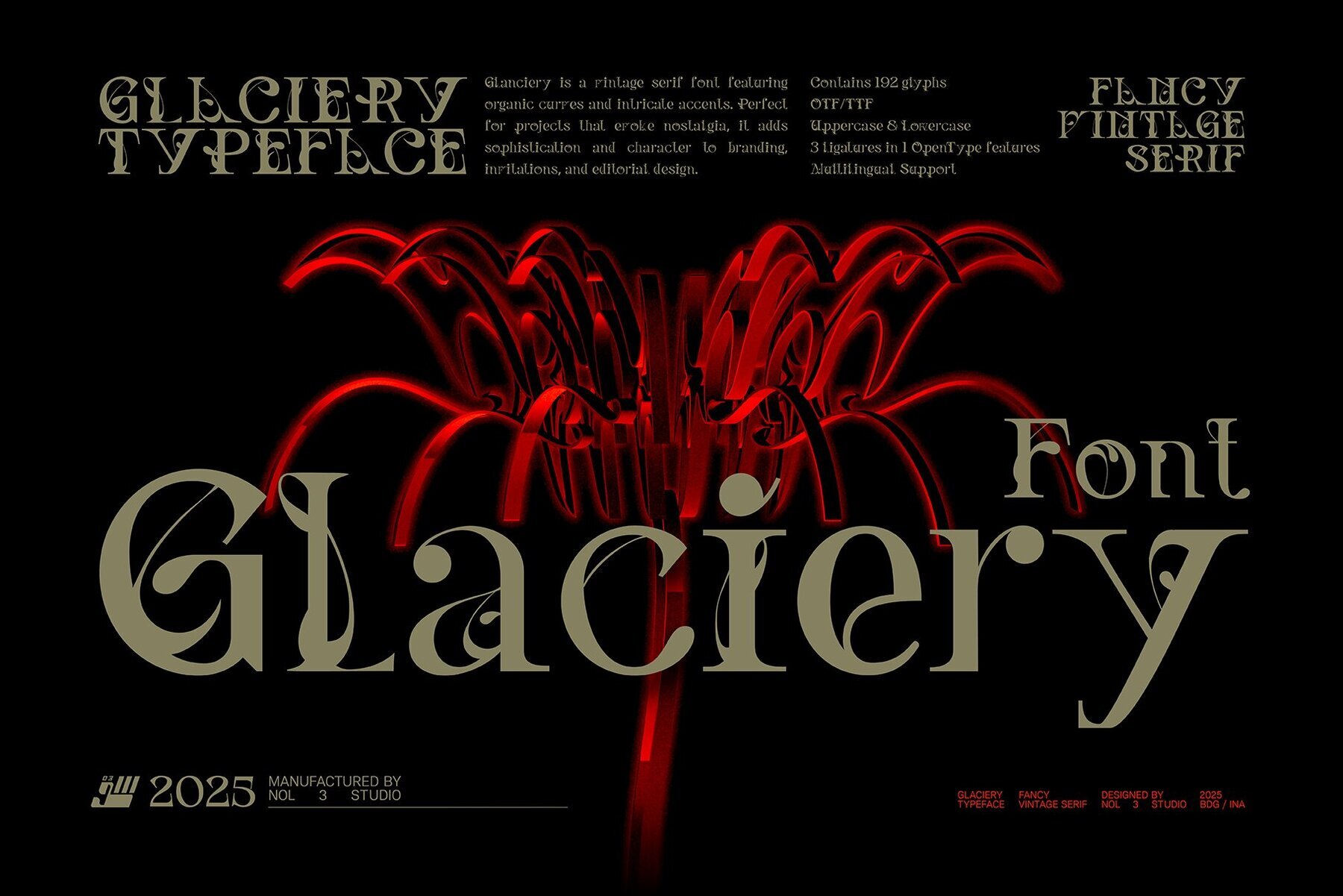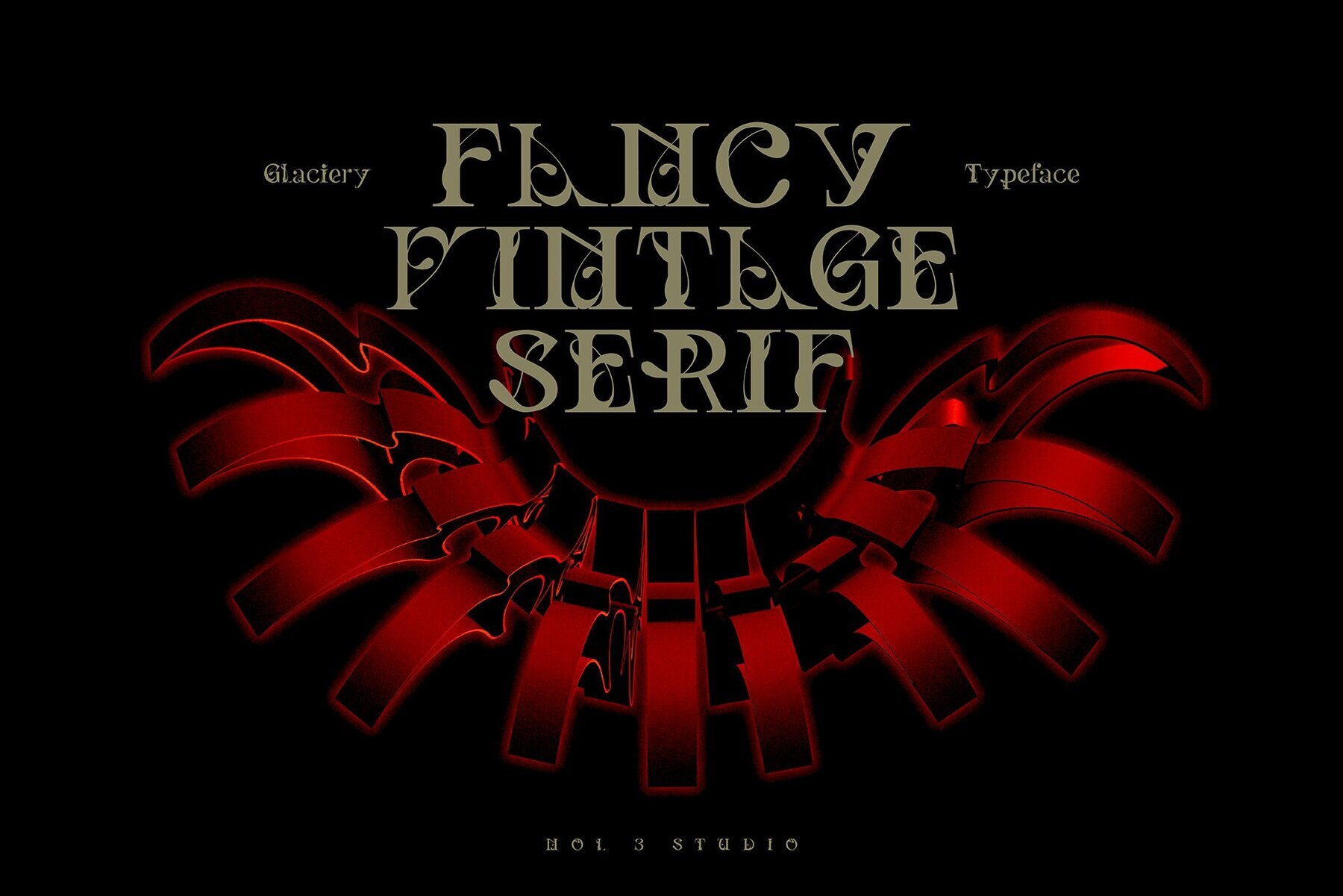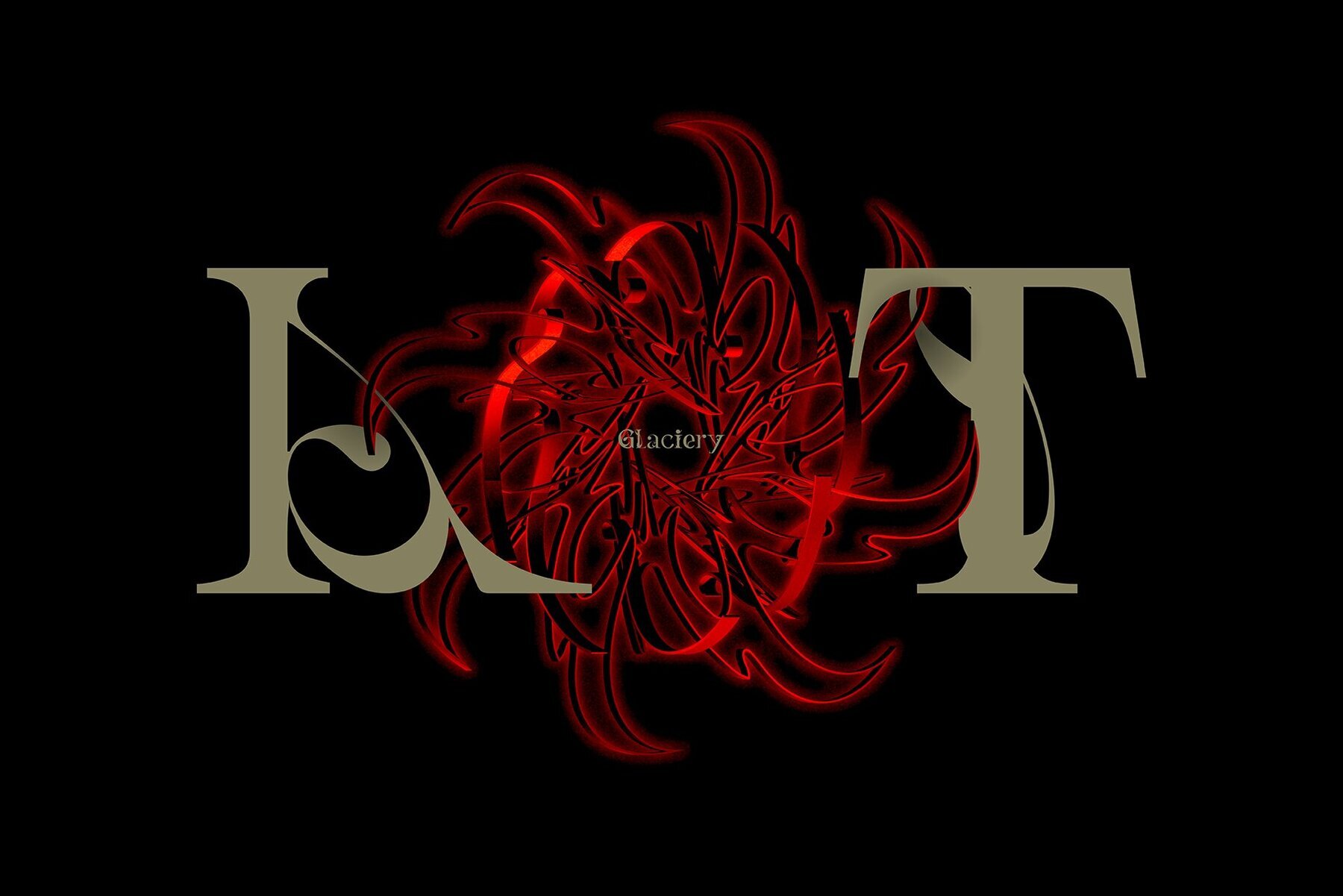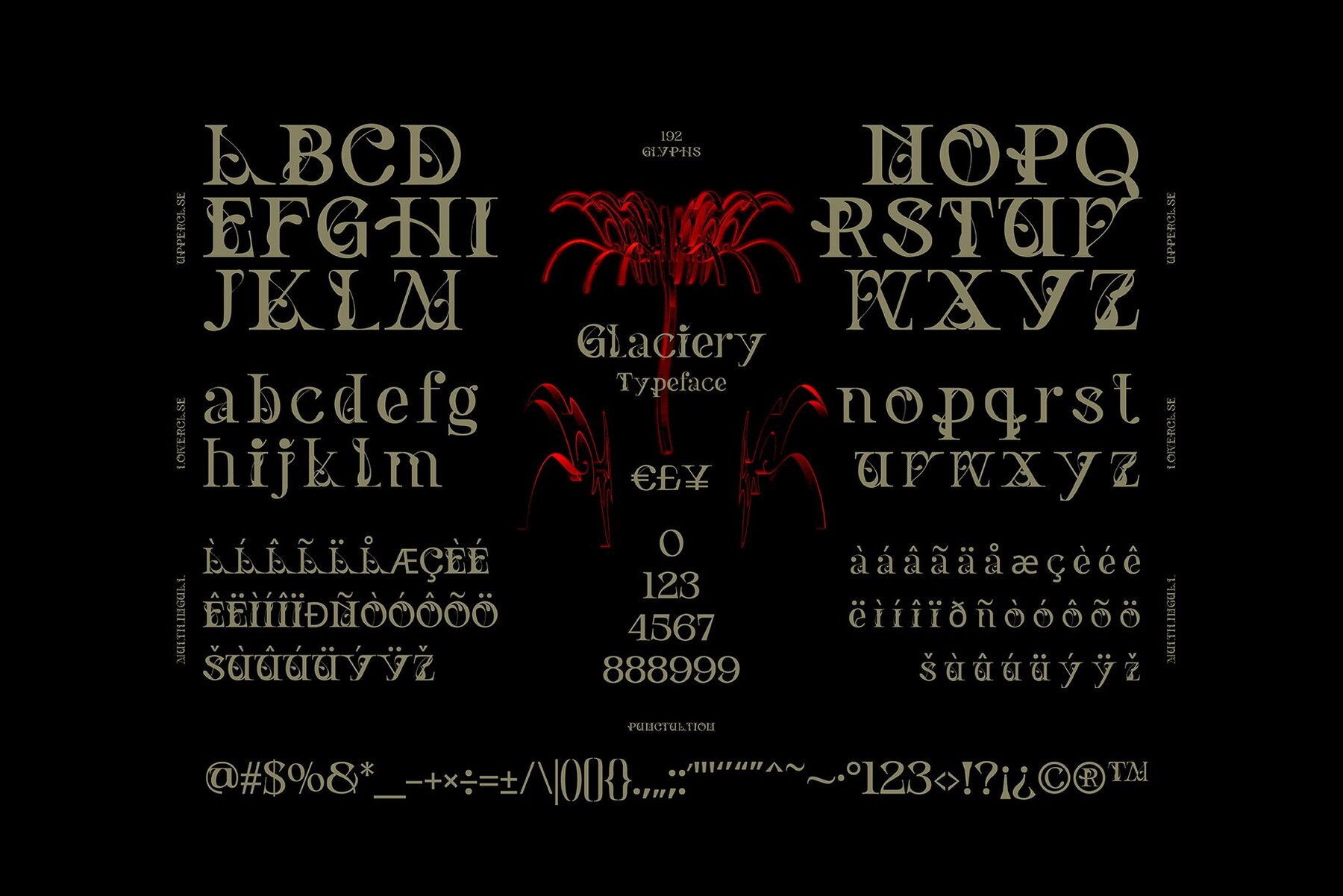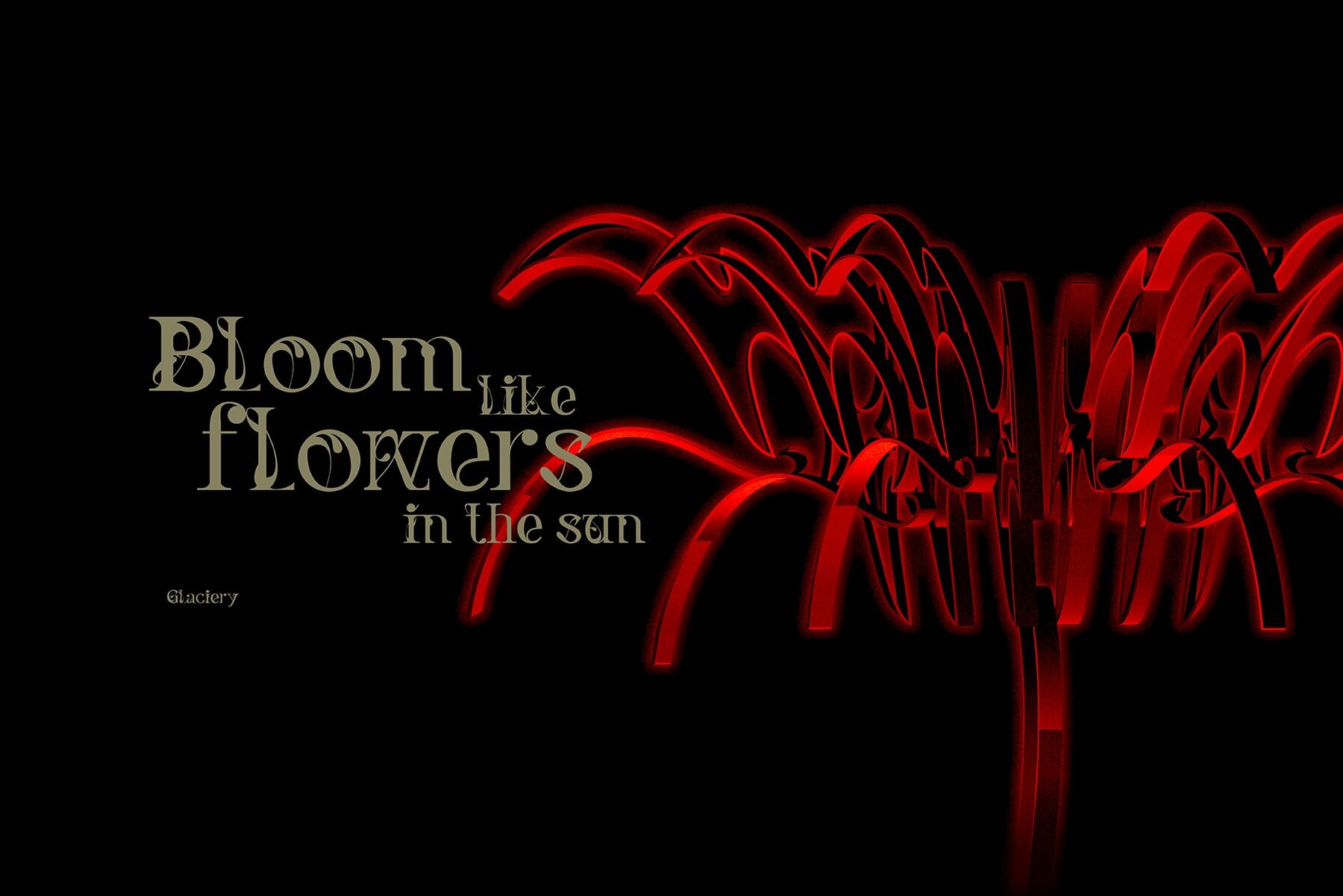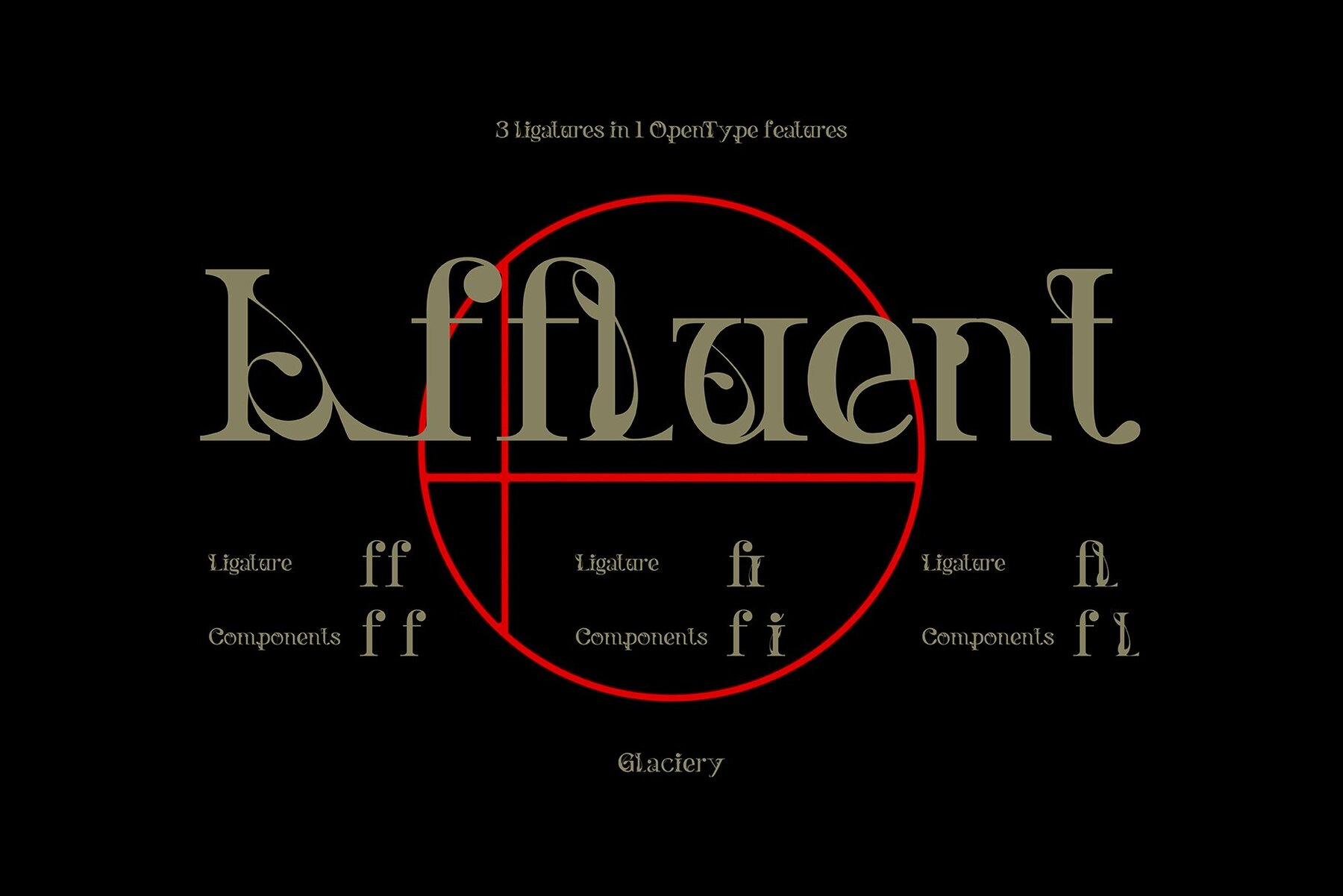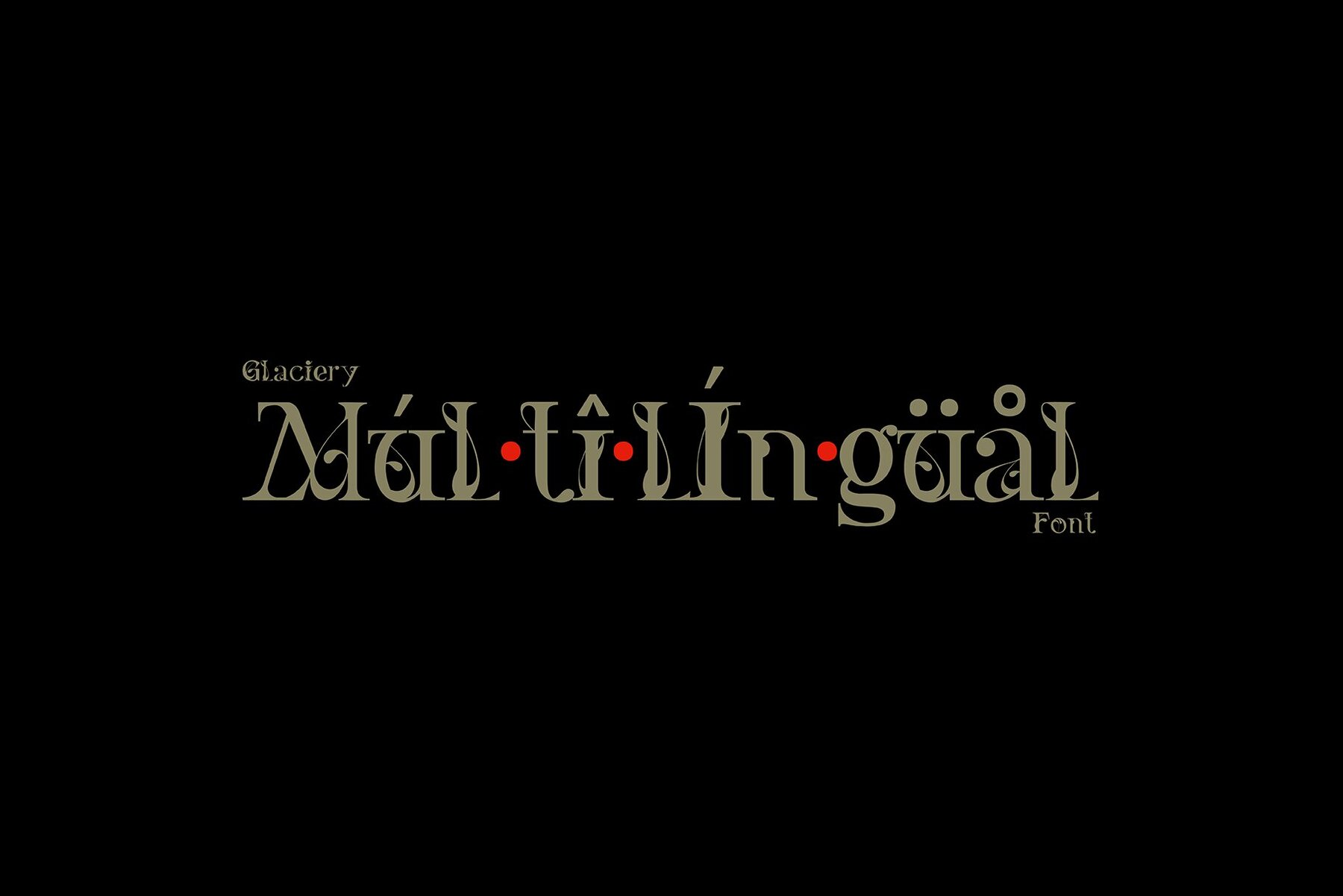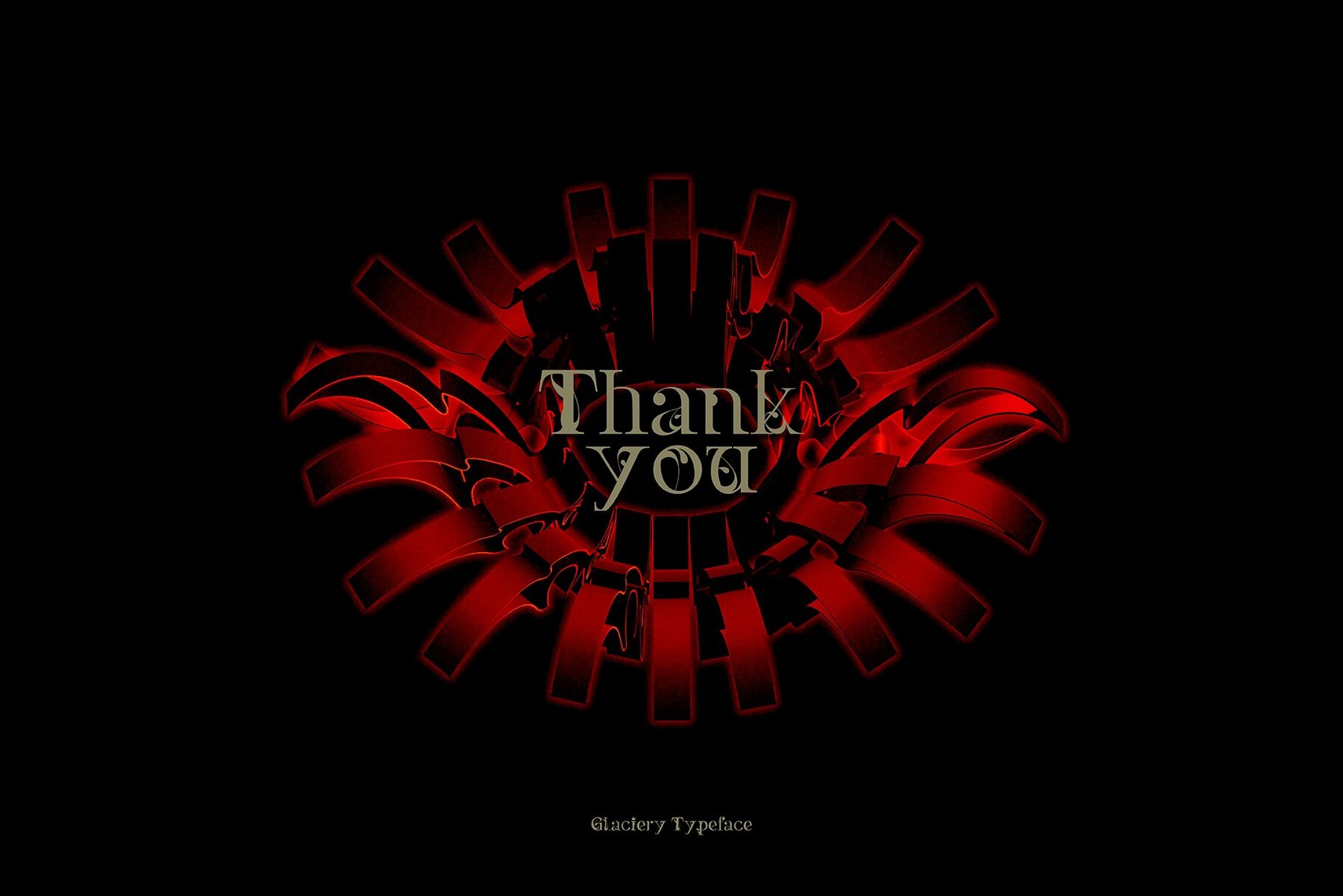
Glaciery Font
Glaciery Regular
Glaciery is a vintage-inspired serif font that merges elegance with organic curves and detailed accents. This font is ideal for designers looking to infuse a touch of nostalgia and sophistication into their branding, invitations, or editorial designs. The intricate design elements of Glaciery provide a unique character, making it a standout choice for a variety of creative projects.
Key Features:
- Includes 192 glyphs
- Offers both uppercase and lowercase letters
- Contains numbers and punctuation marks
- Features 3 ligatures with OpenType capabilities
- Provides multilingual support
With its classic aesthetic and detailed craftsmanship, Glaciery enhances the visual appeal of any project, creating a timeless look that resonates with audiences.